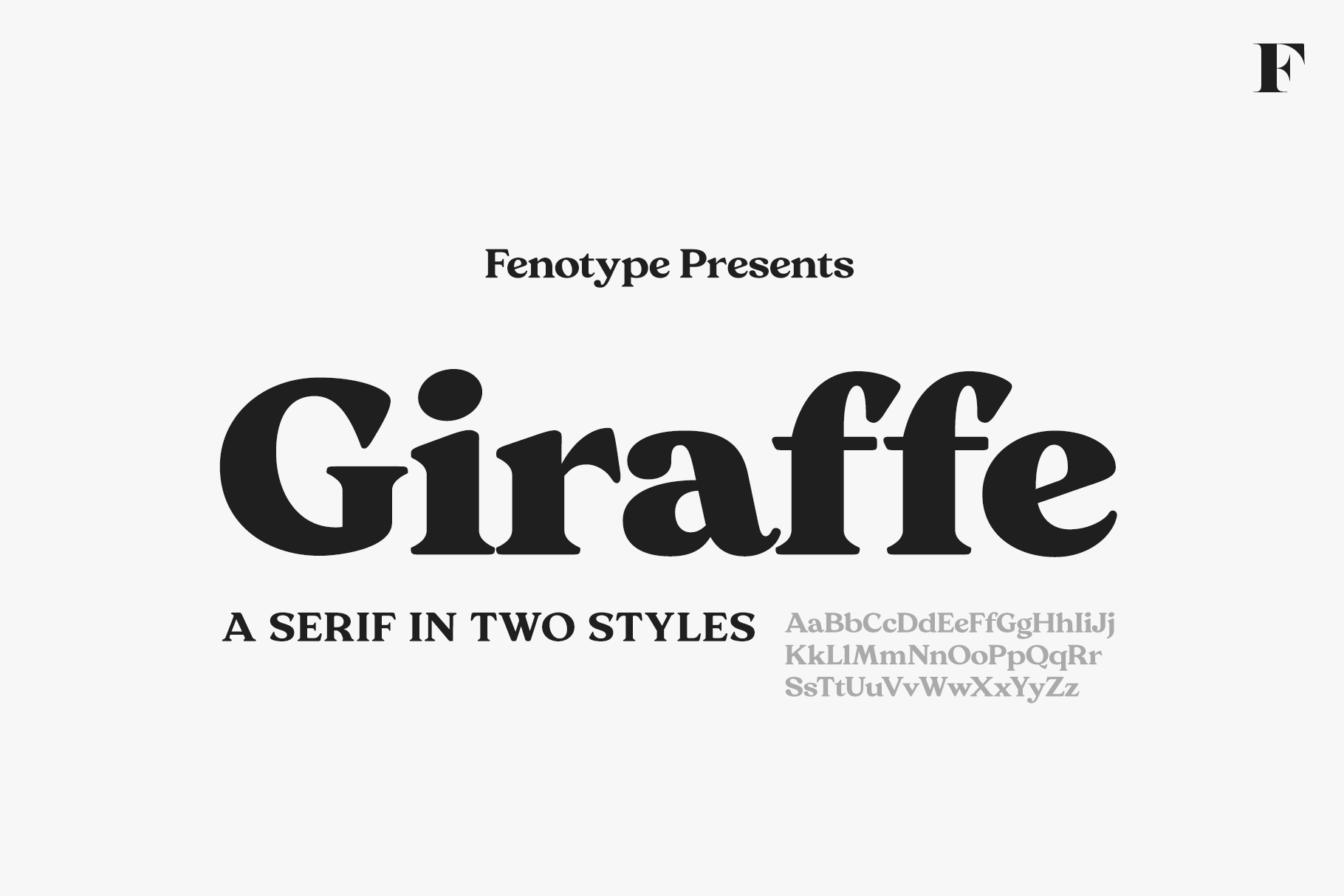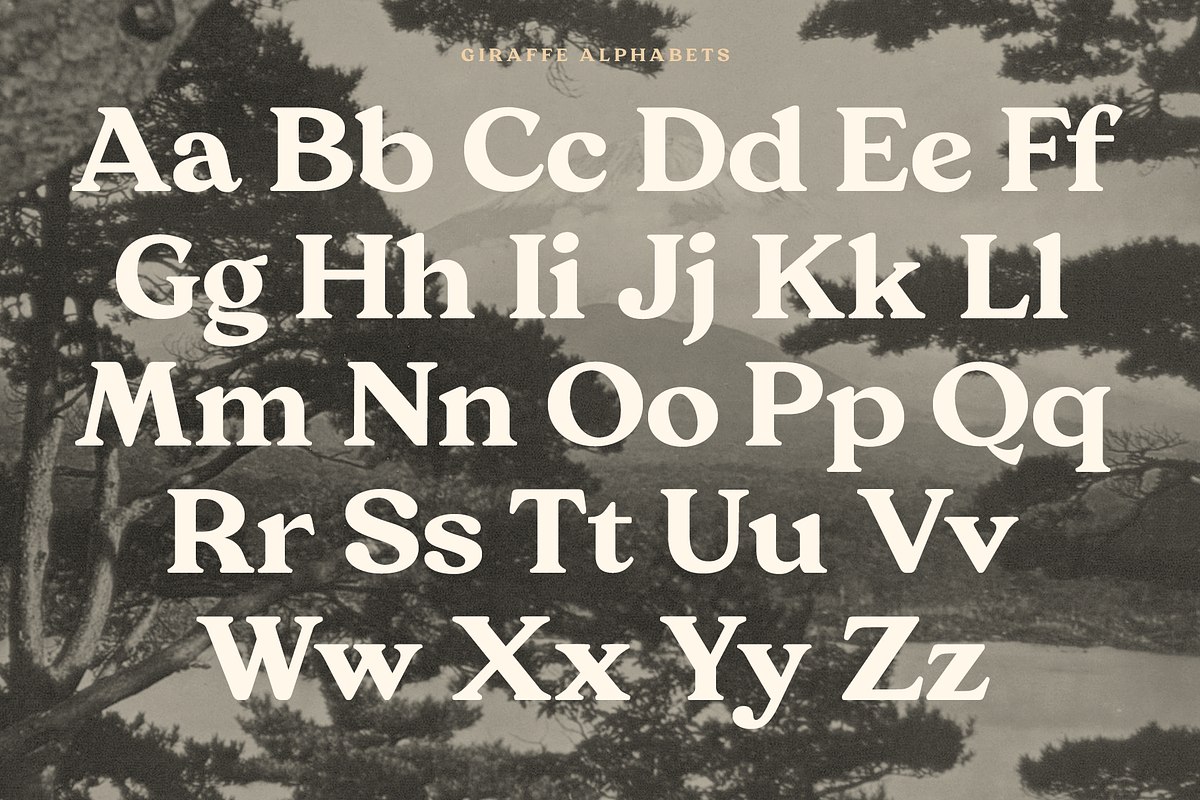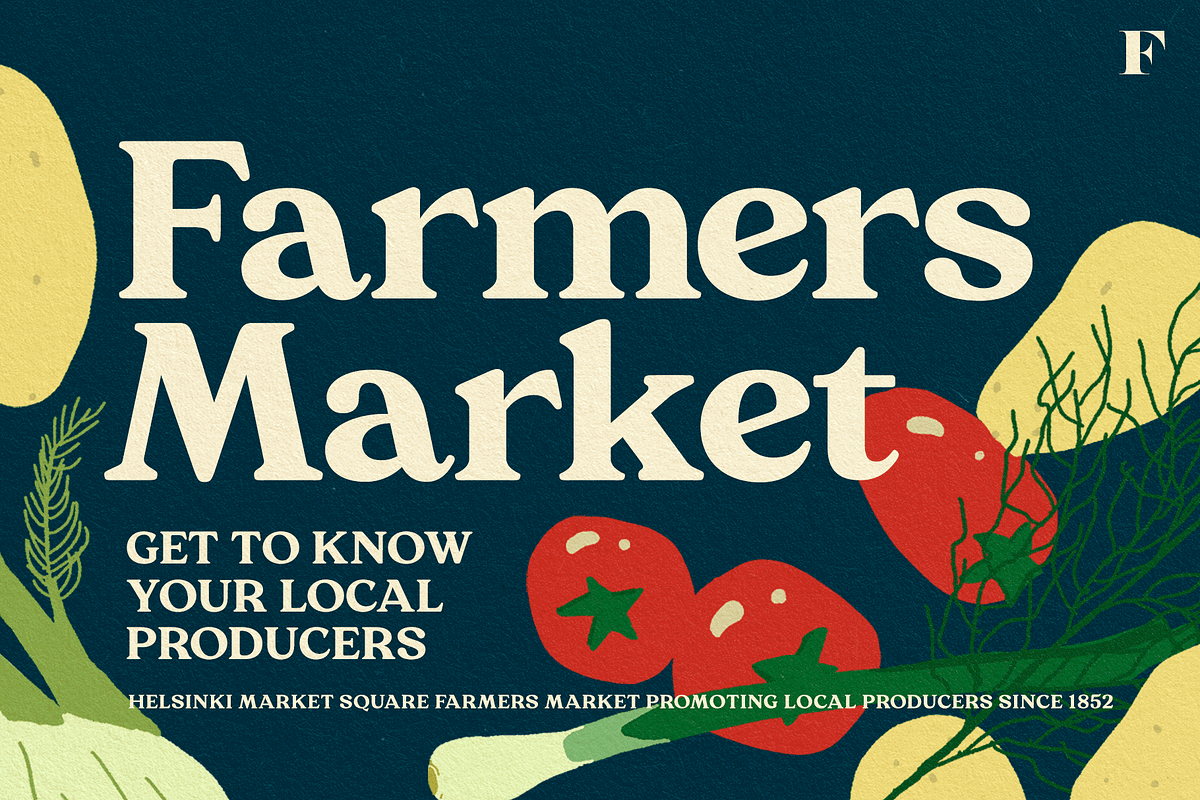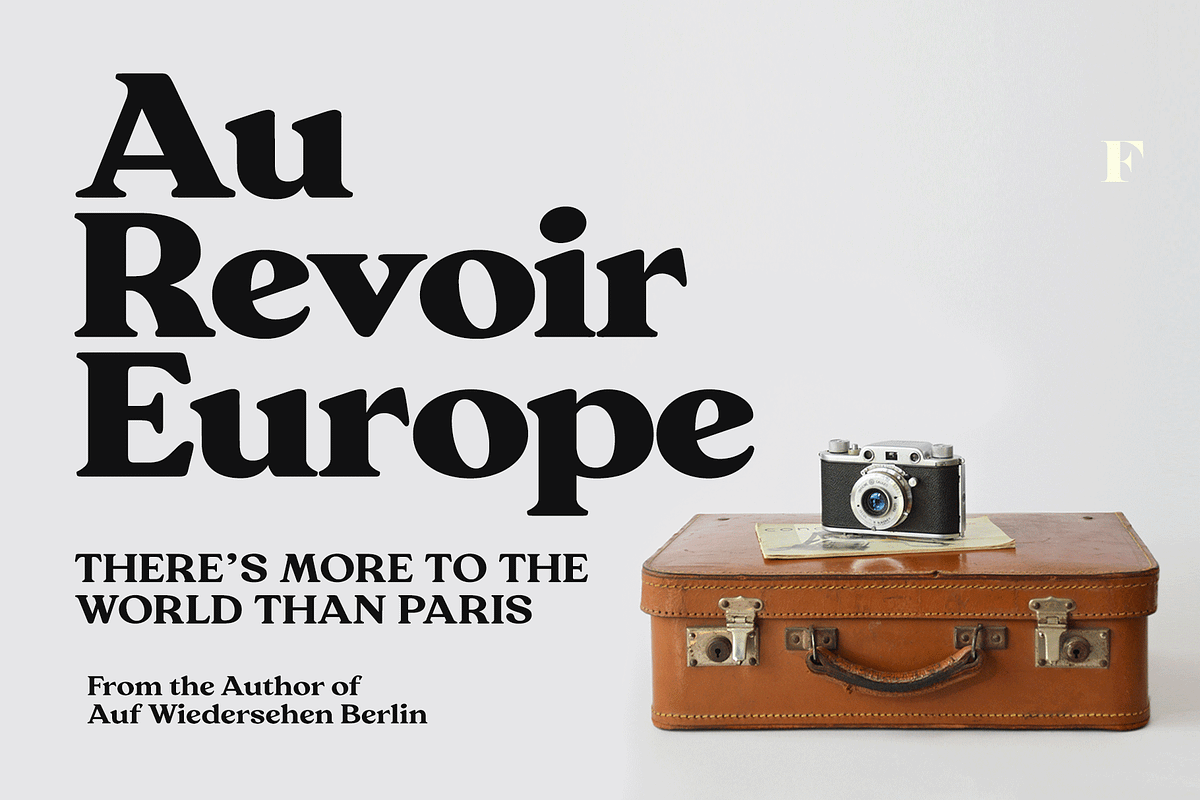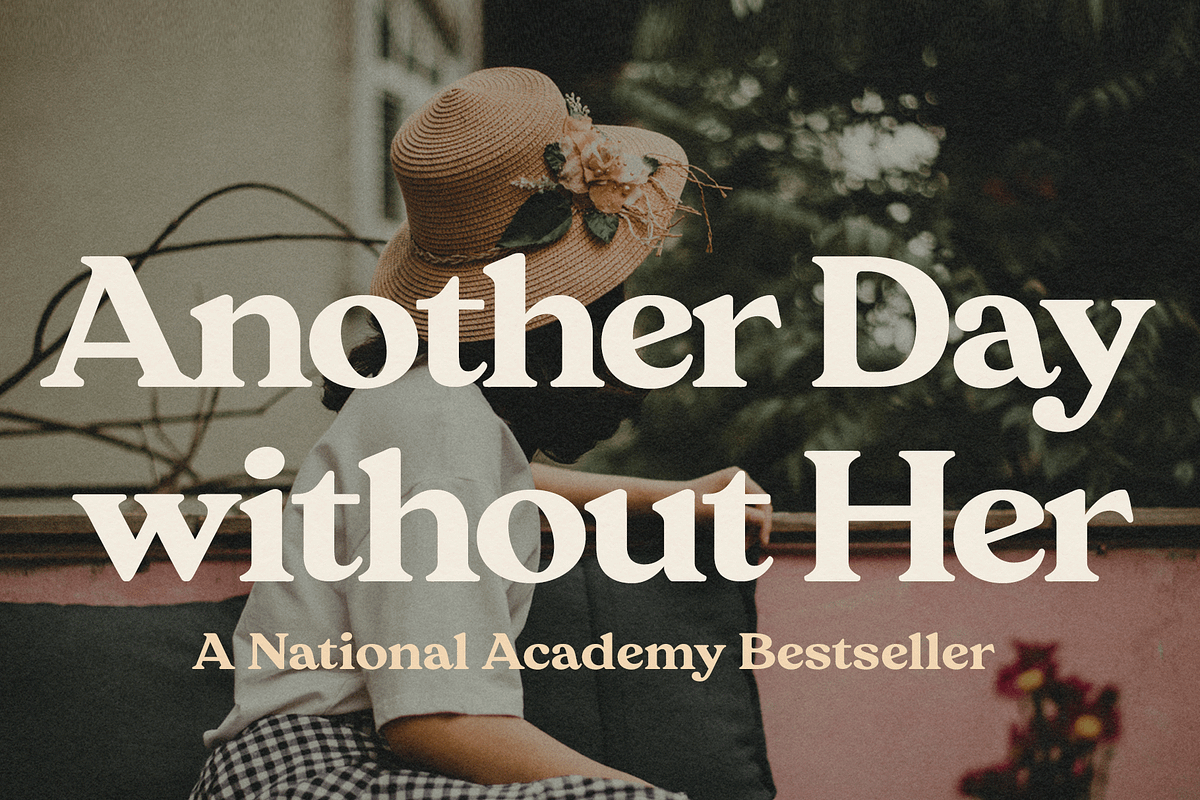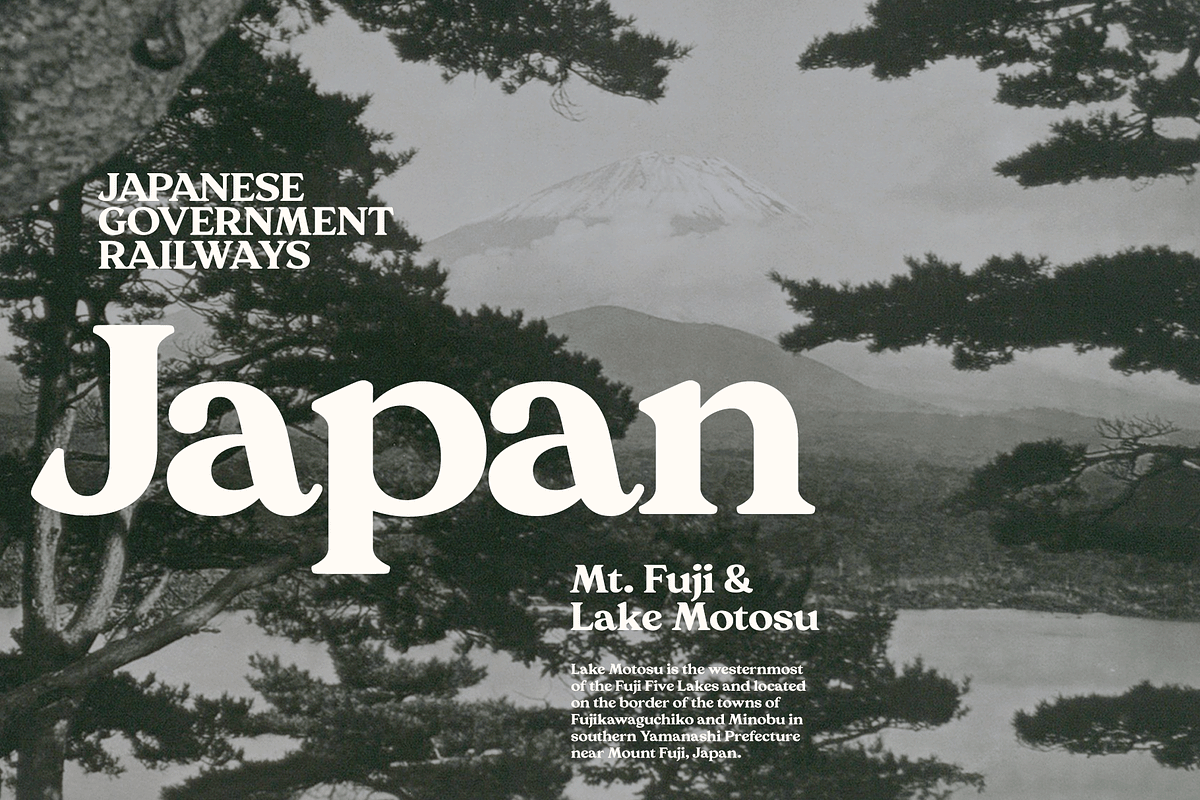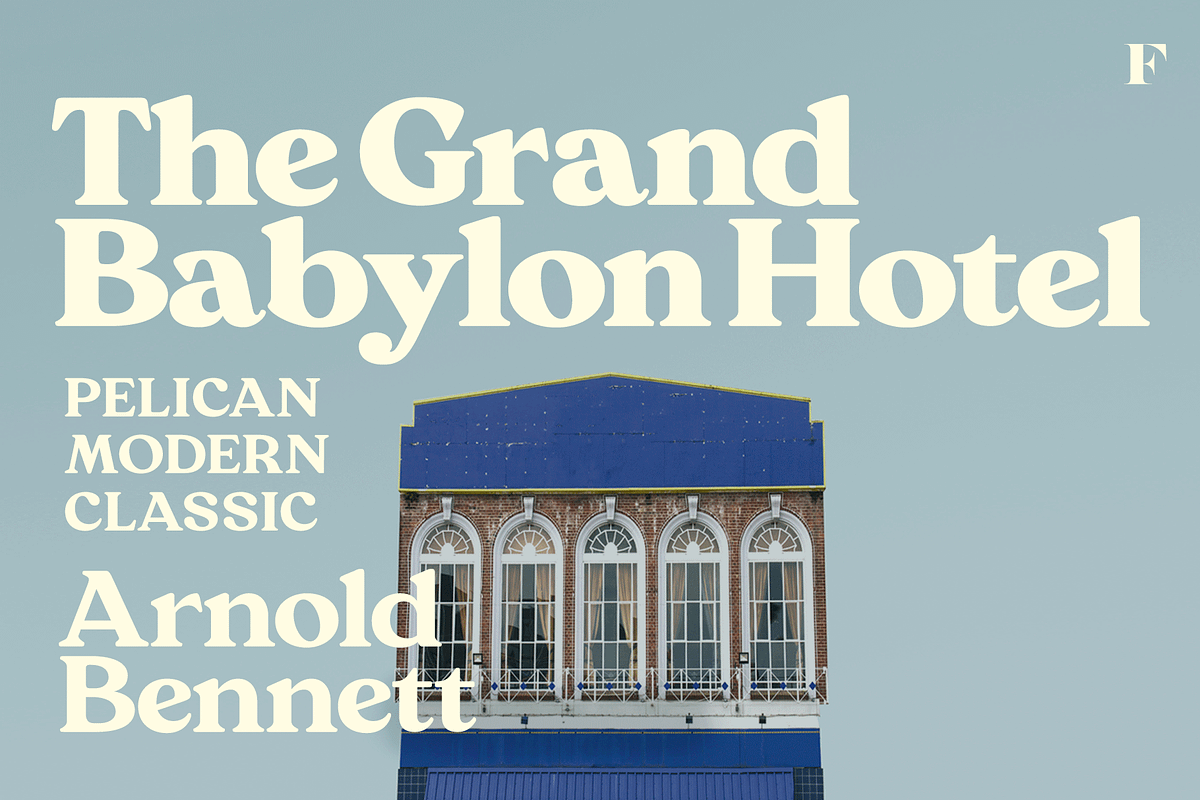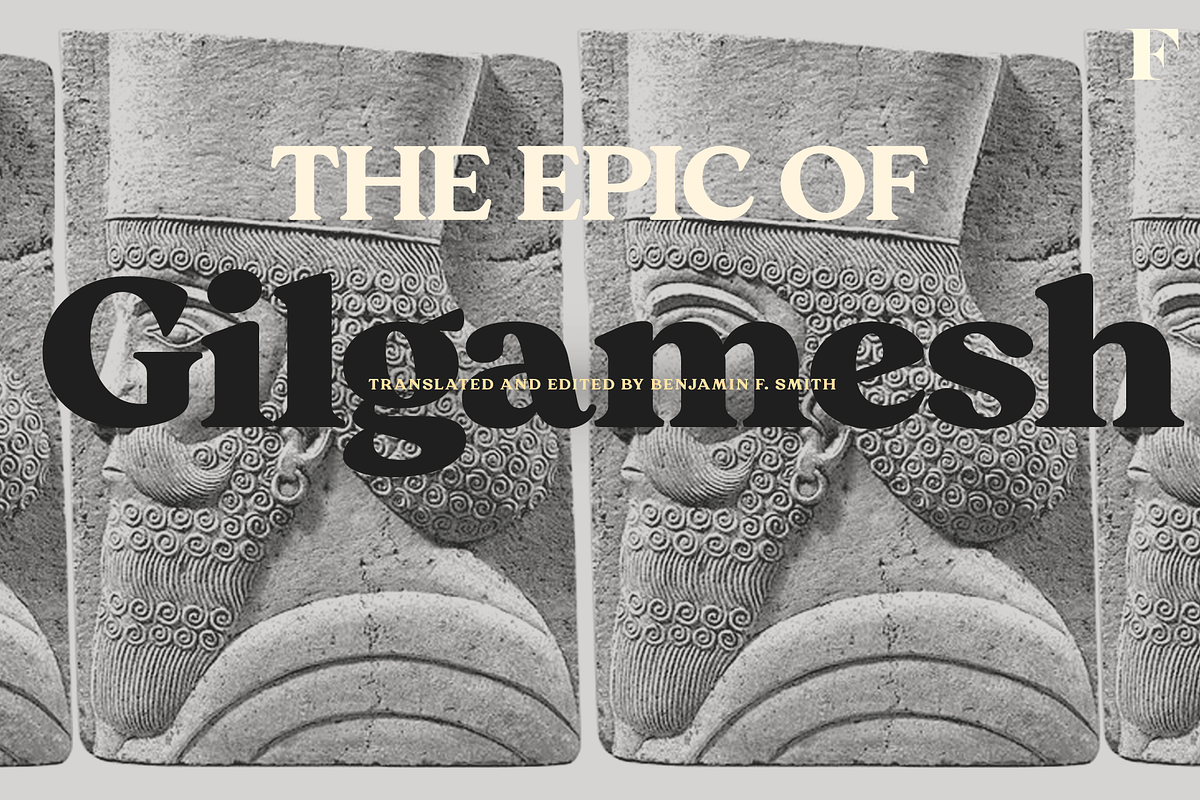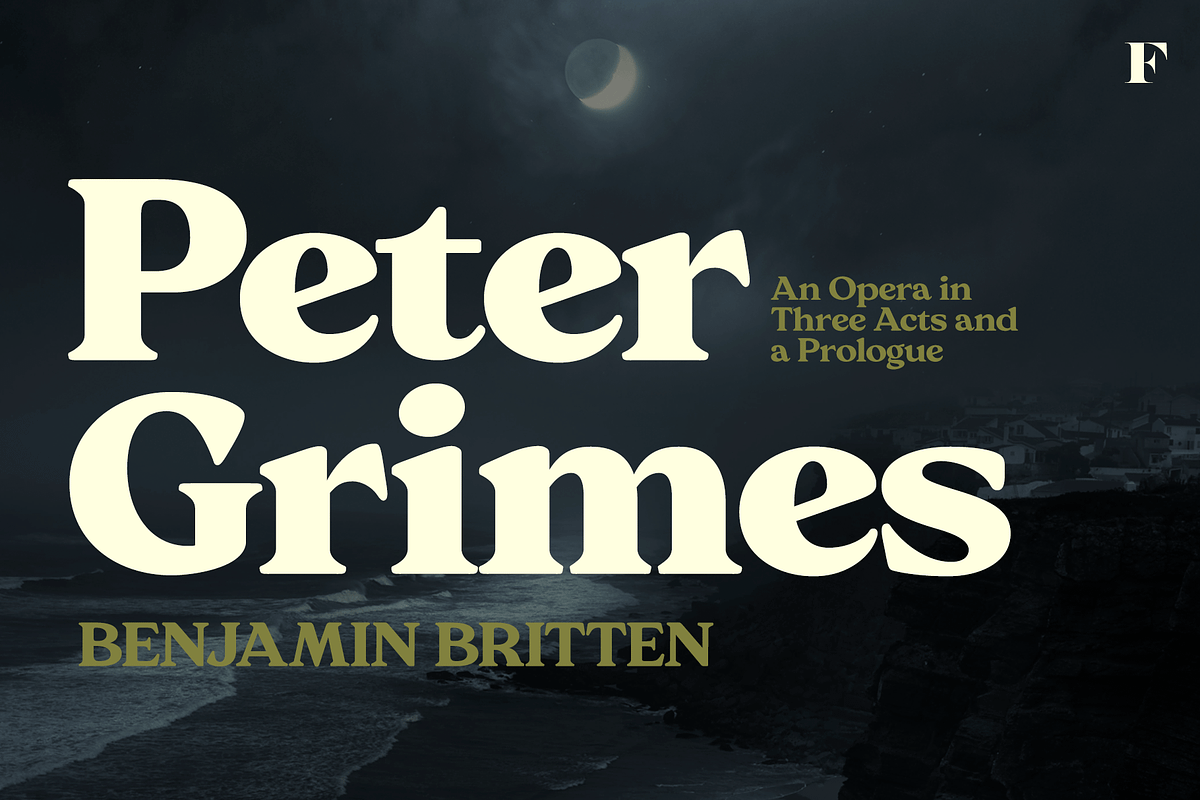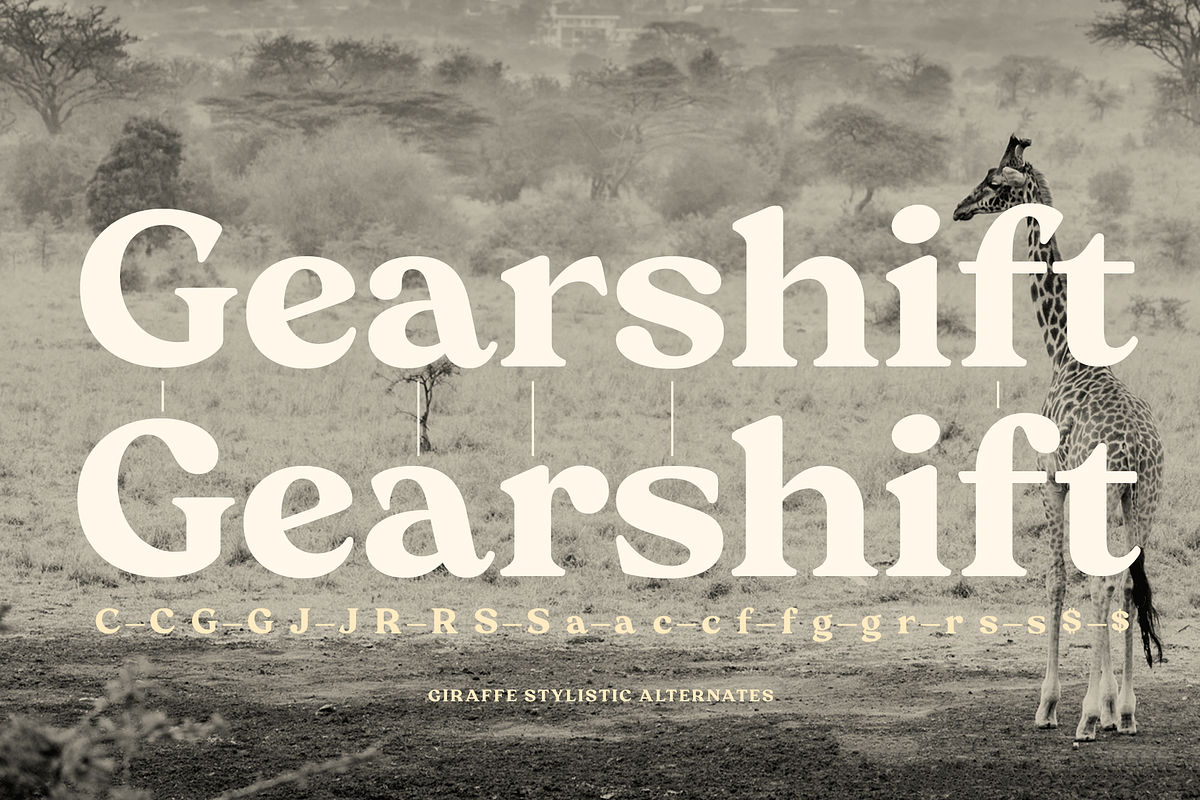
Giraffe Bold Serif Font
Giraffe is a wide and bold rounded serif in two styles. Giraffe occupies a large space and is best used as display type to convey a confident look. Giraffe comes with a set of Stylistic Alternates for letters C,G,J,R,S, a, c, f, g, r, s and $.